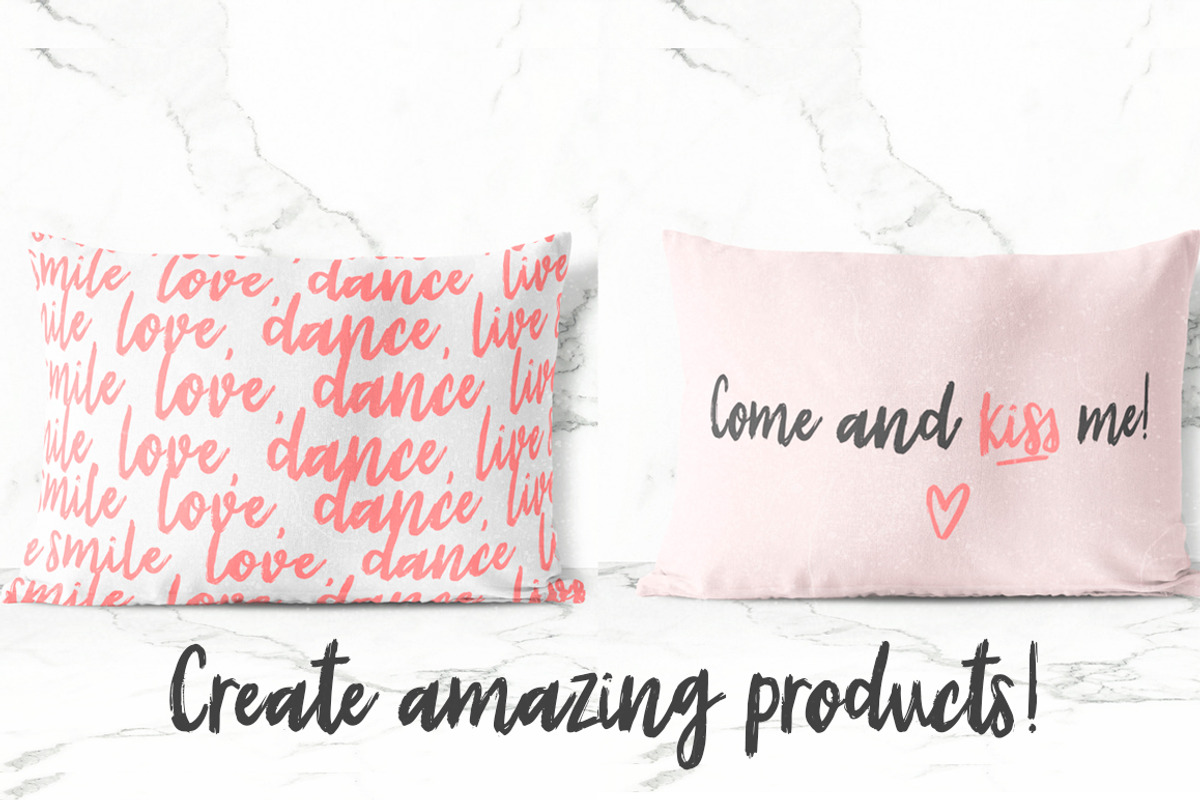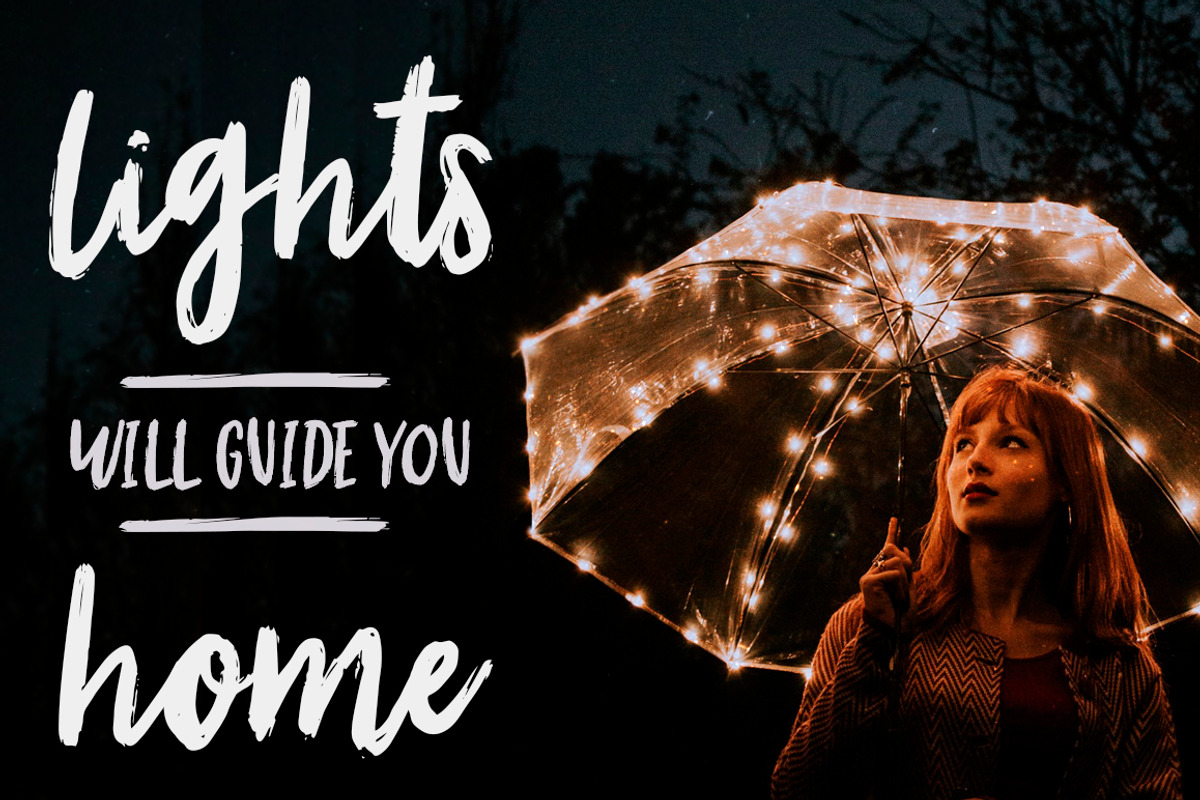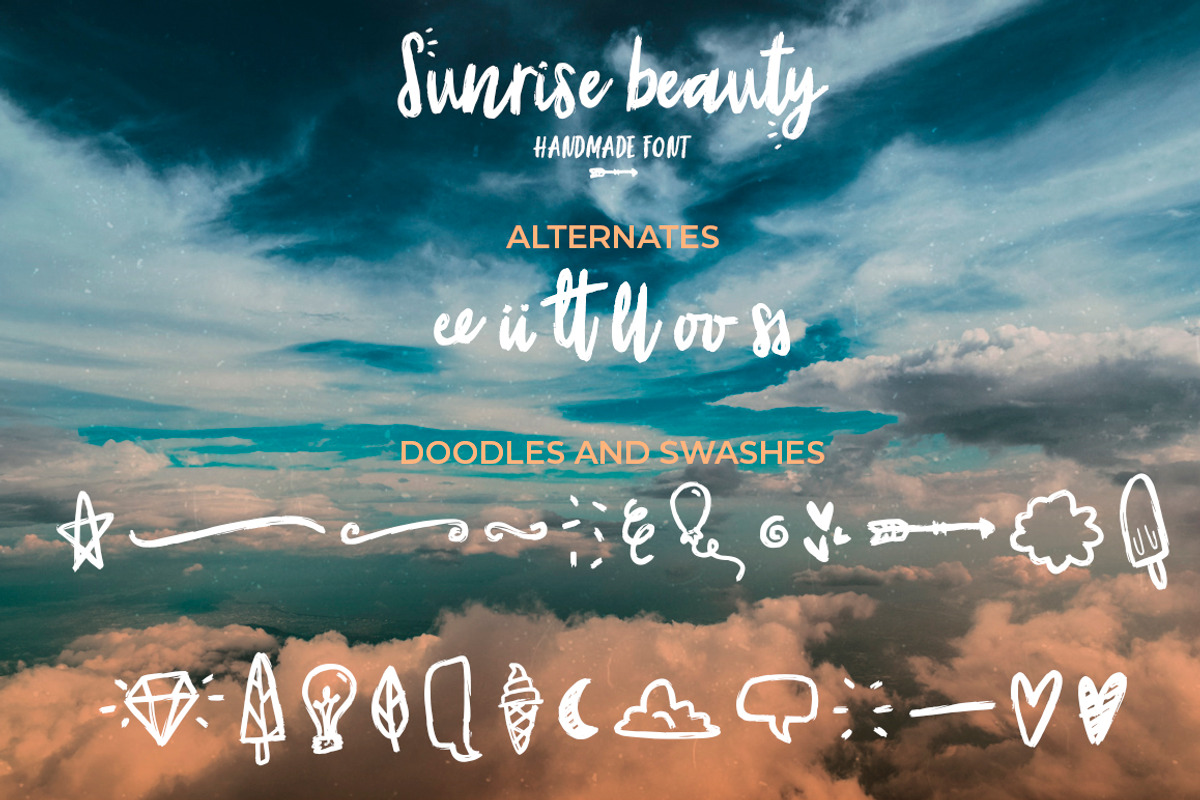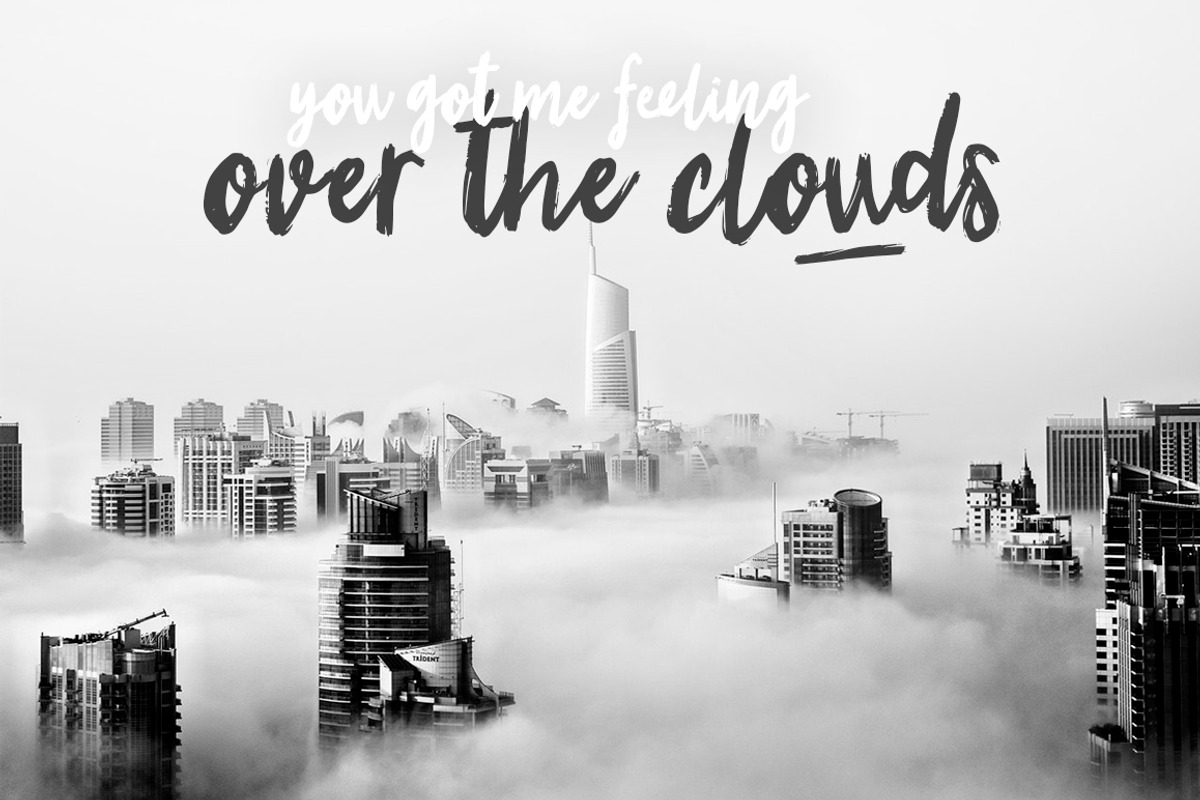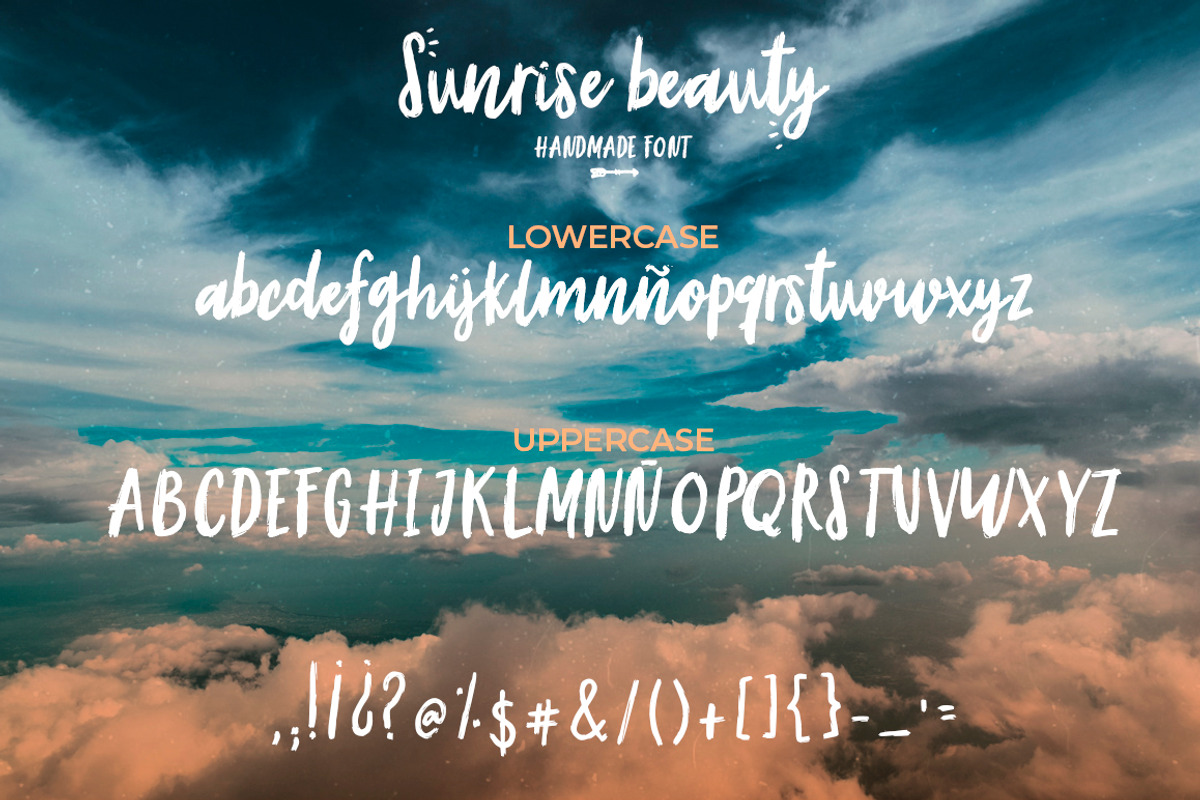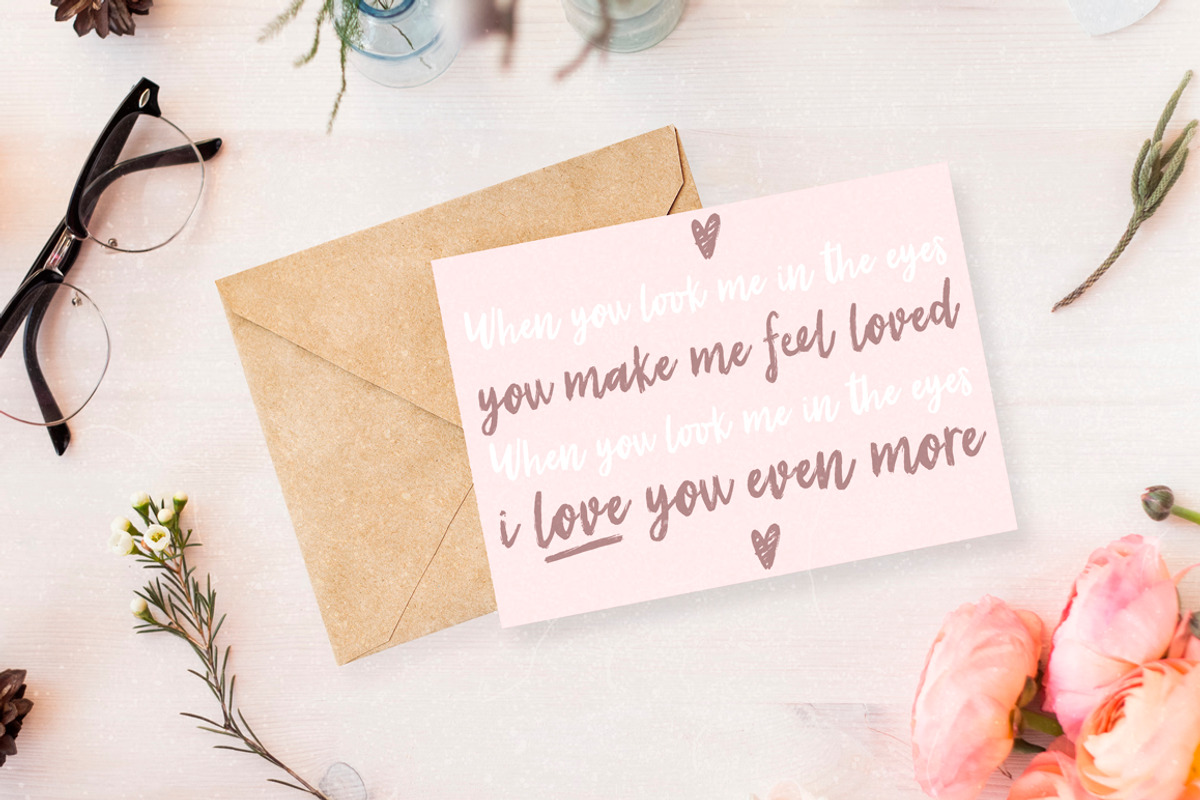
Sunrise | Handmade font + extras!
Hey! I'm happy to present you this beautiful font that is 100% handmade. This cursive textured font is stylish and really feminine.
Create the most amazing products and merchandise
Design beautiful logos and branding projects
Perfect for creating presentations, cards and social media images
EXTRA: doodles and swashes!